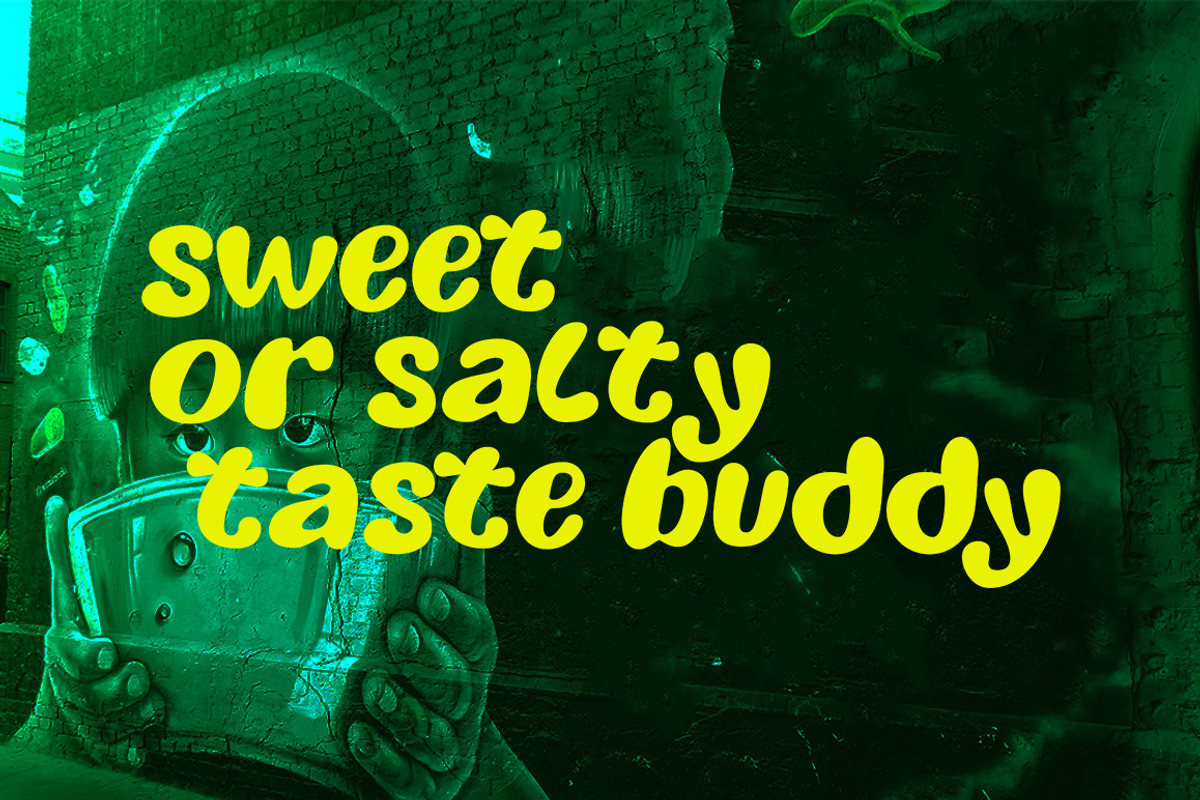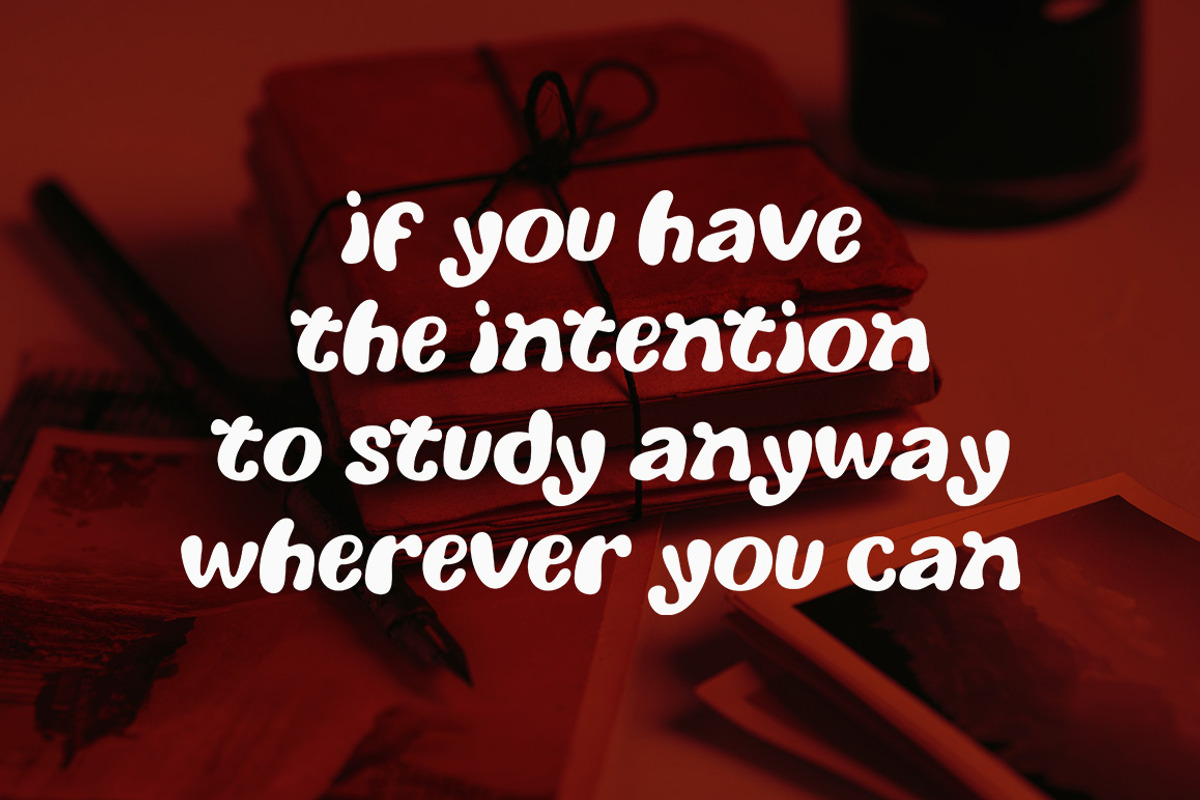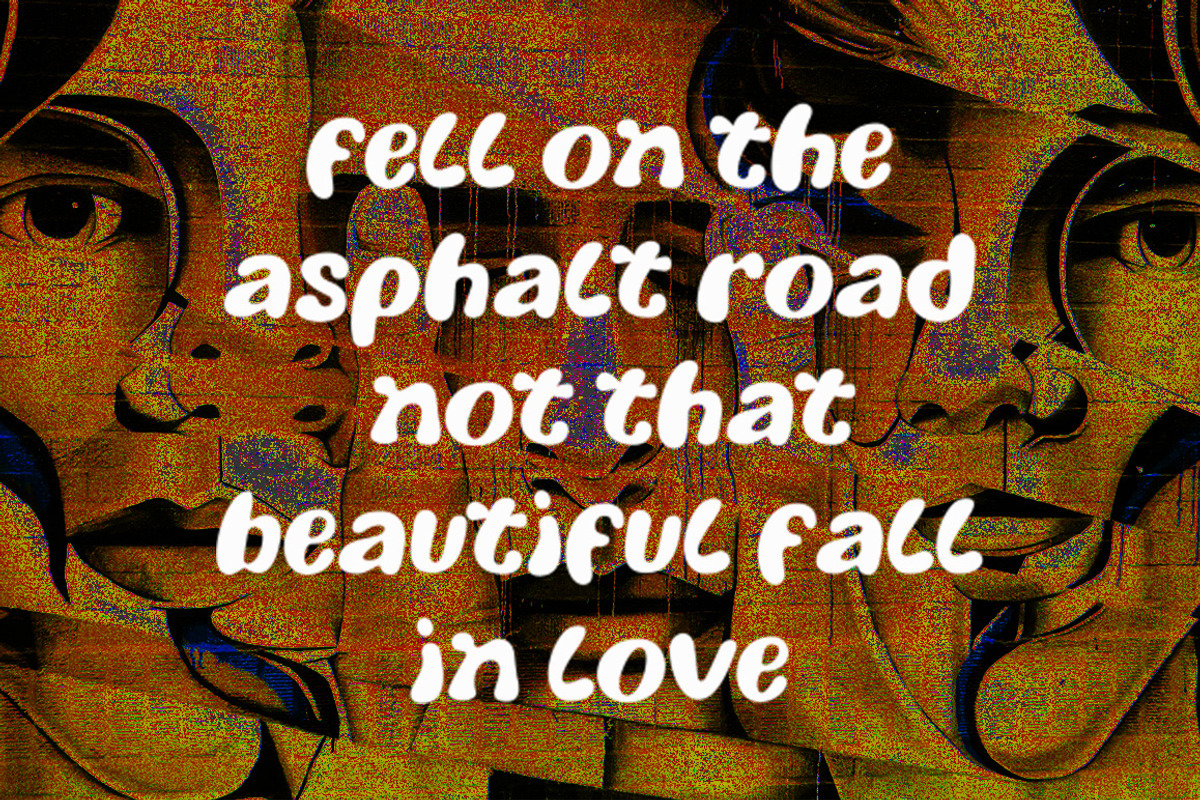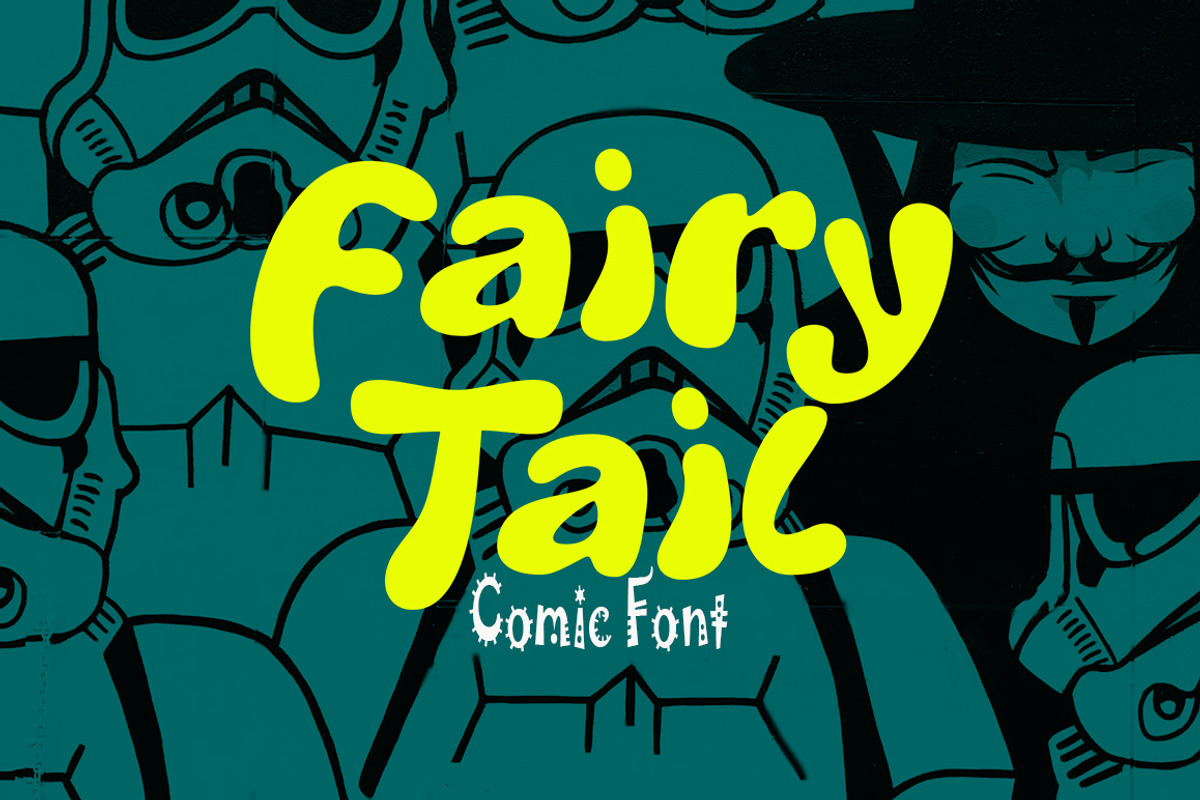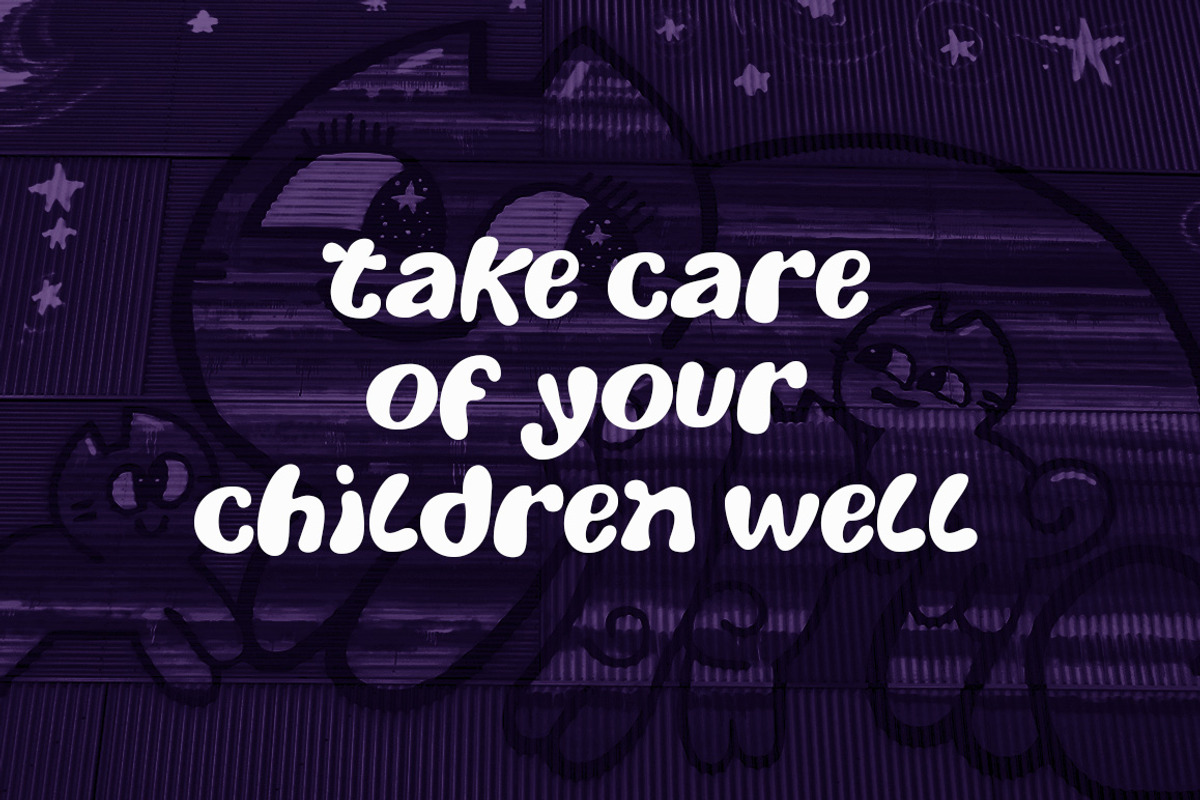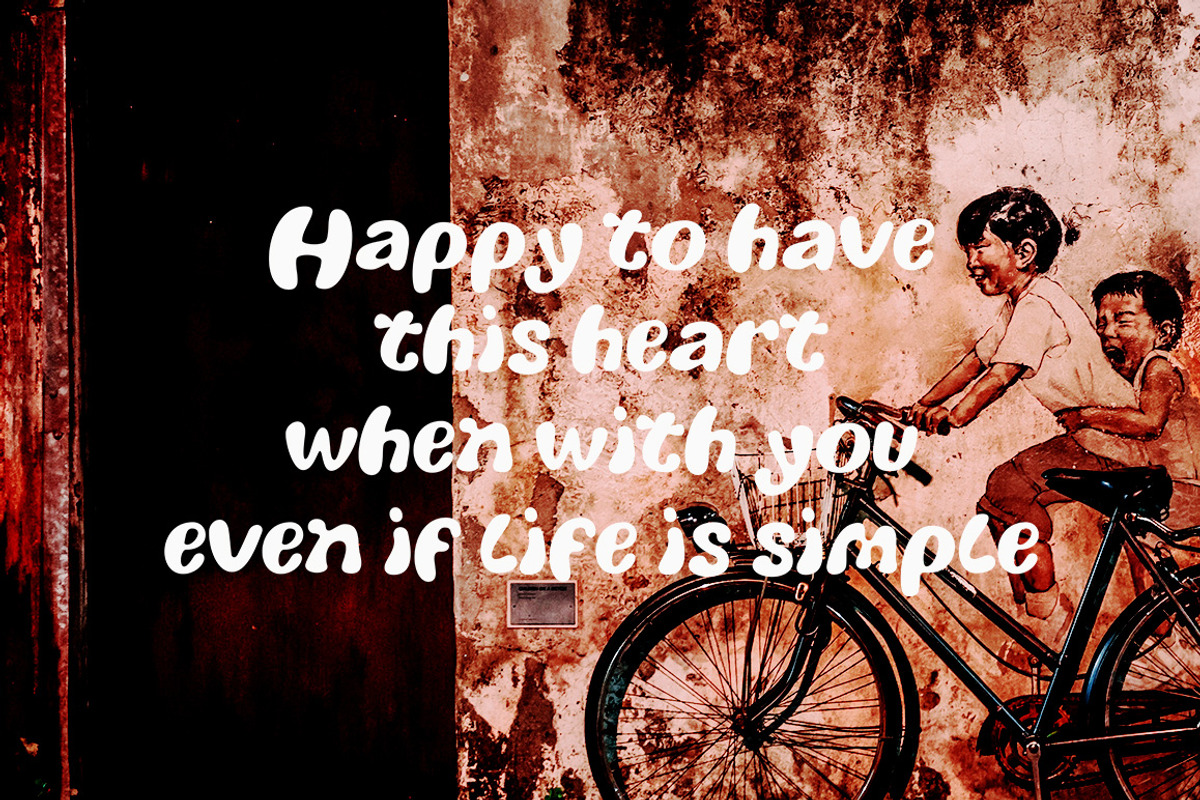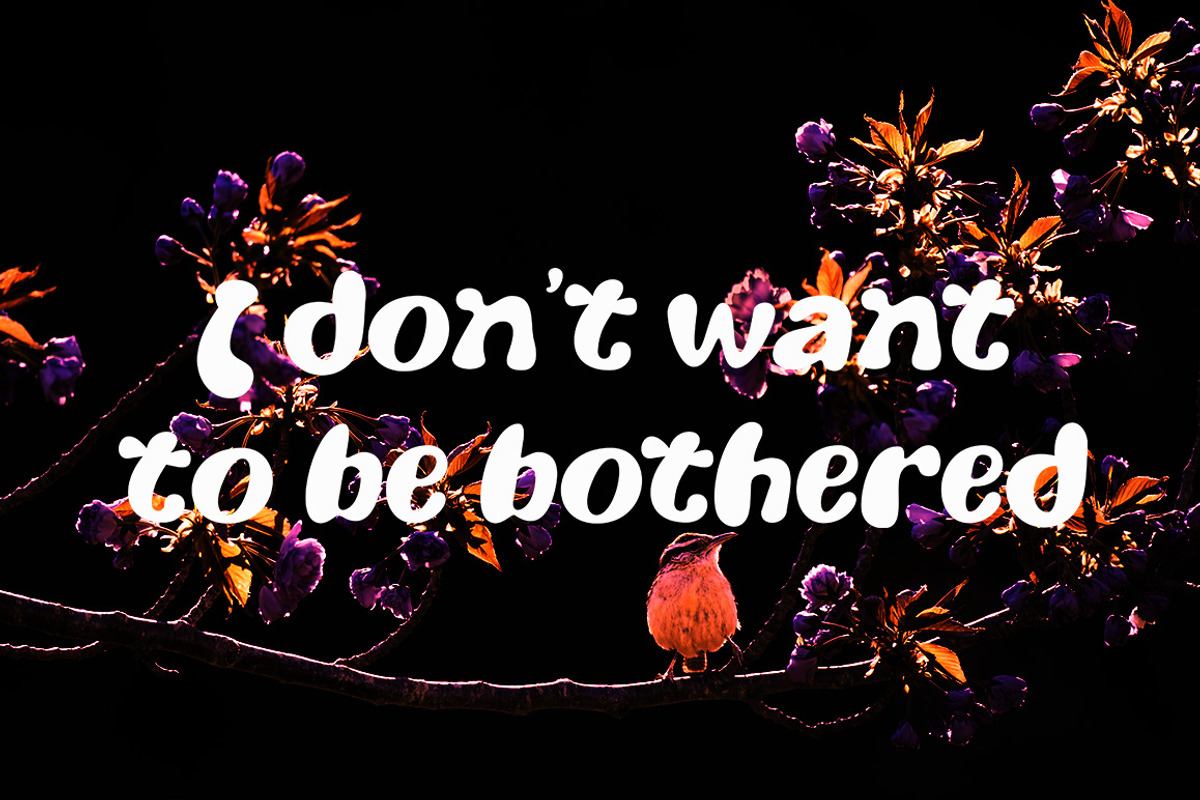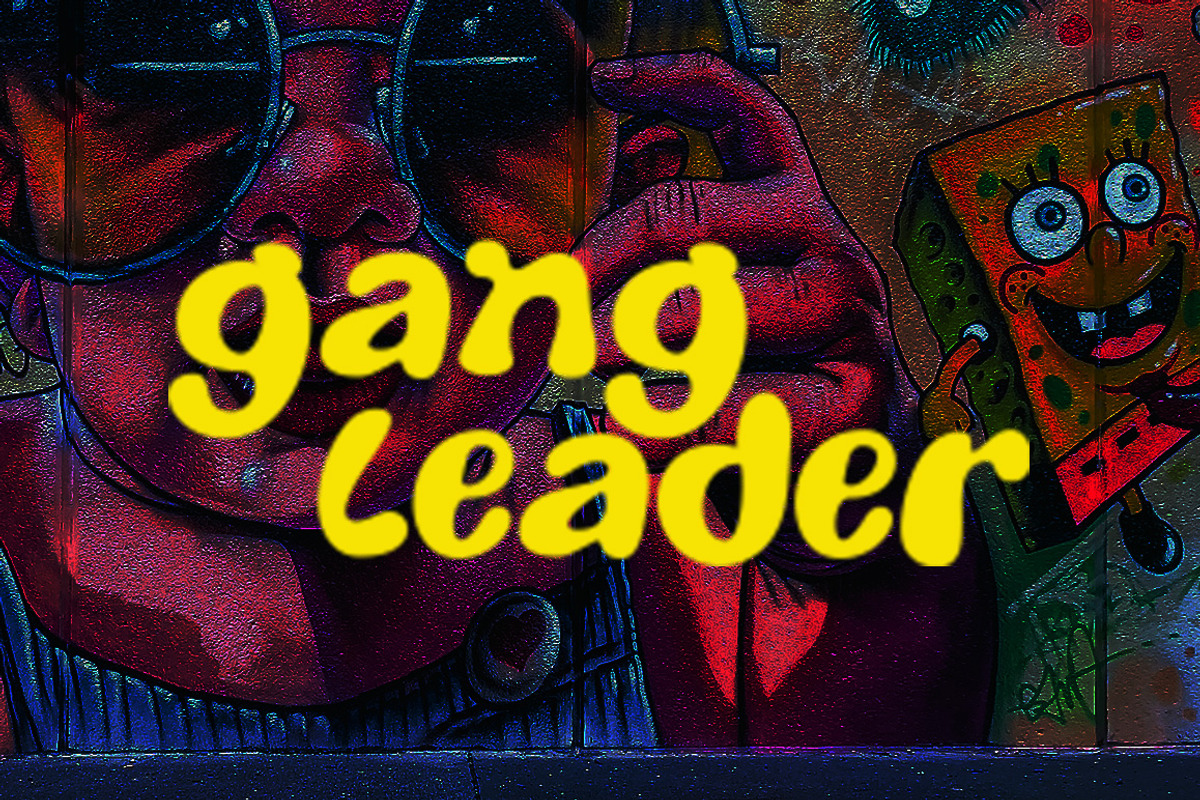
Fairy Tail
Fairy Tail is a friendly and clean display font. It embodies fun and authenticity and is a perfect choice for children's activities or school projects.